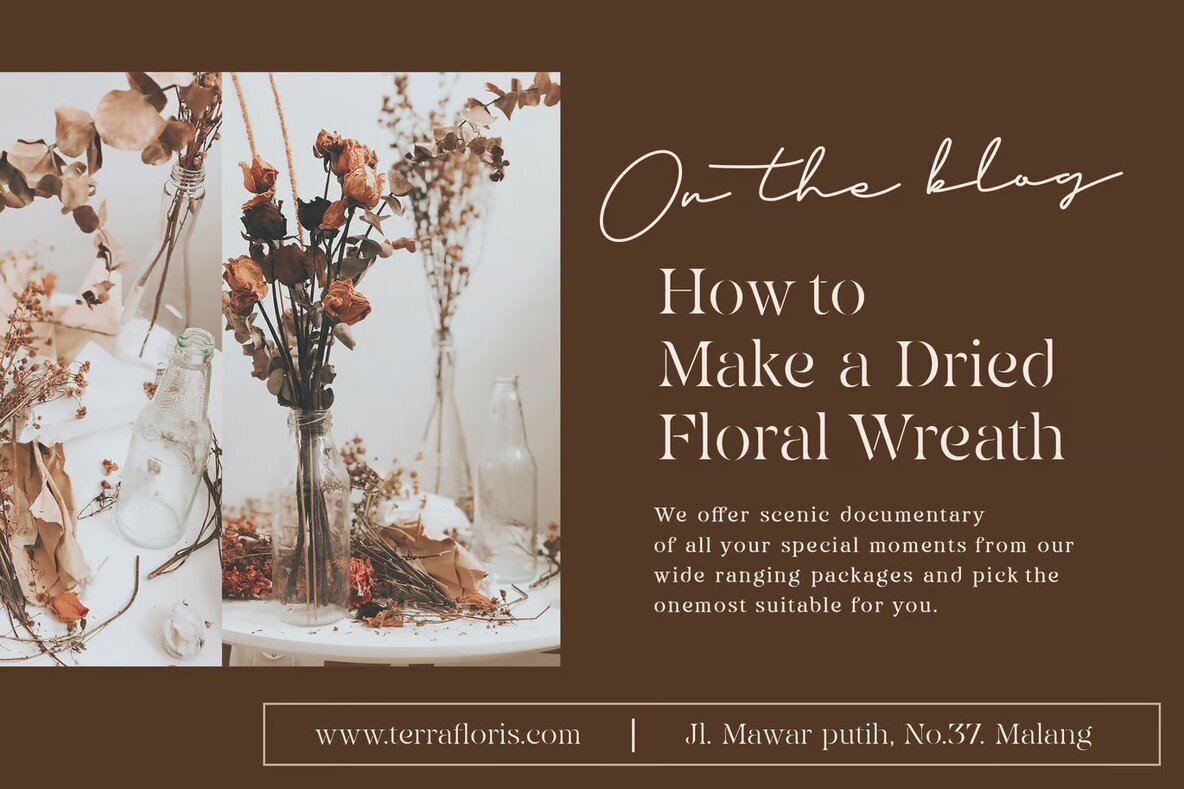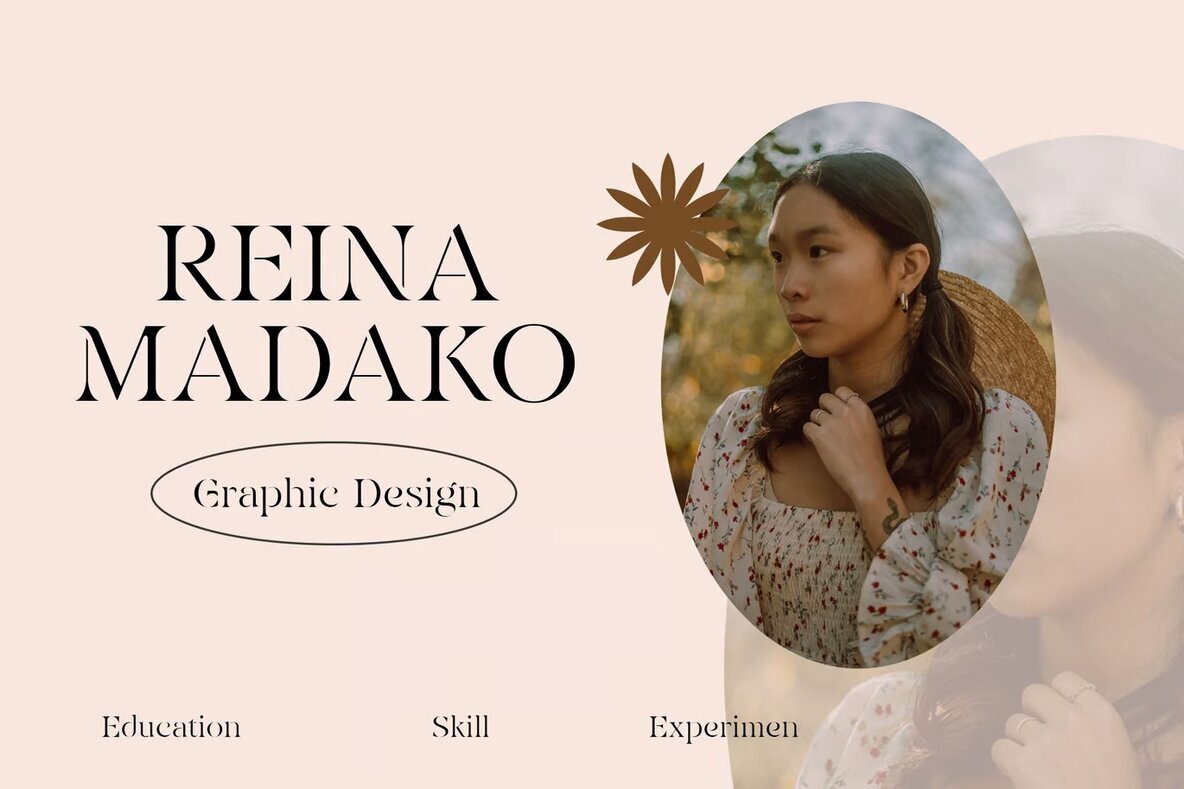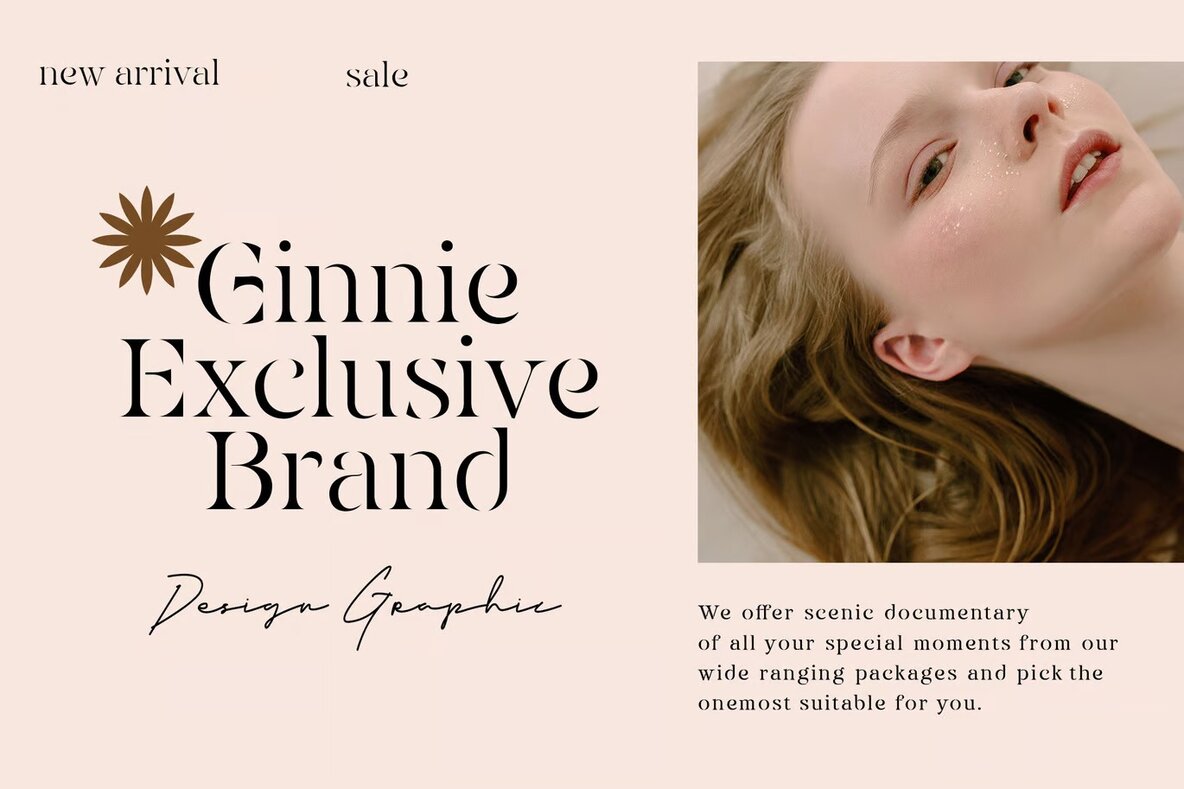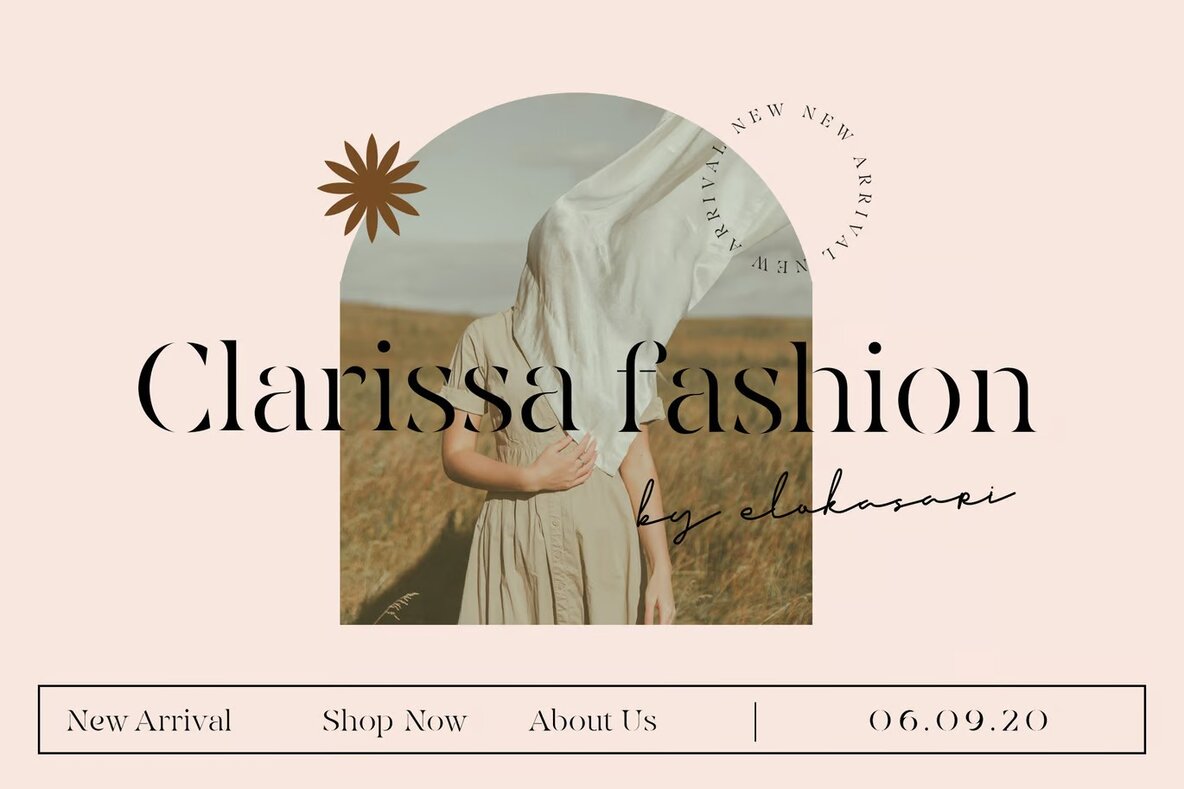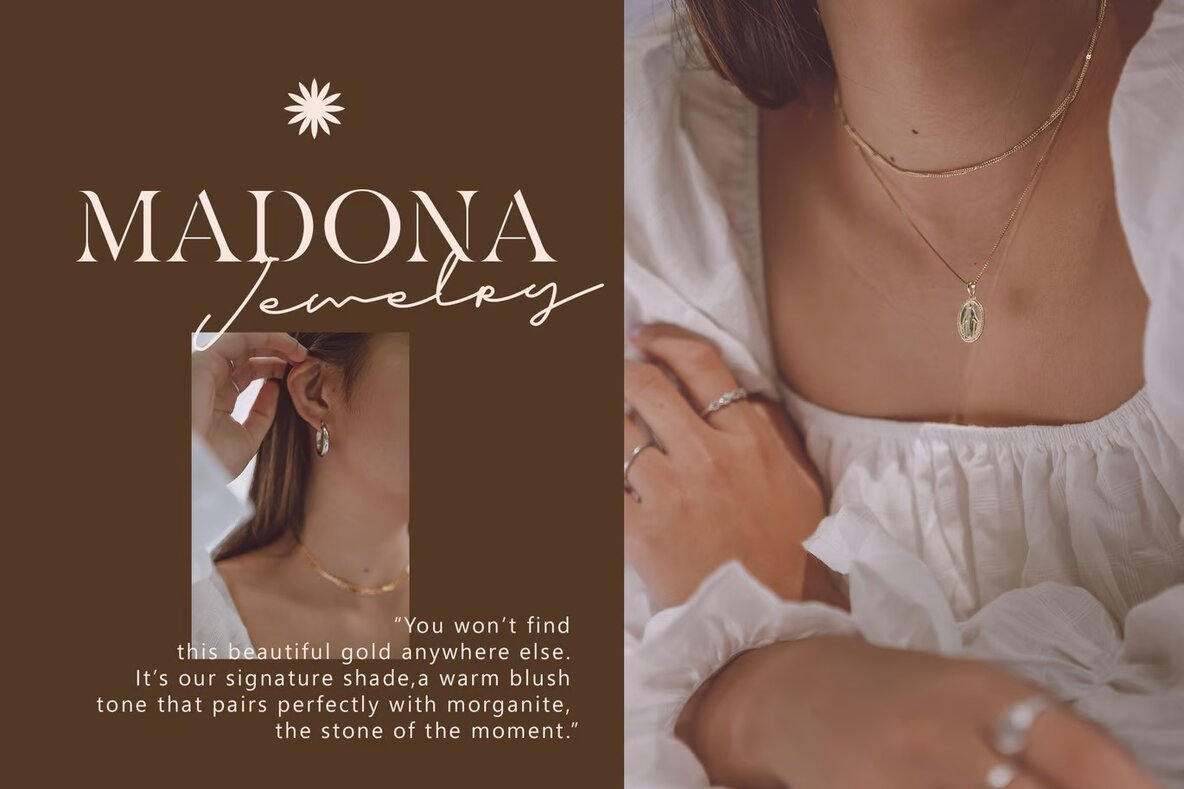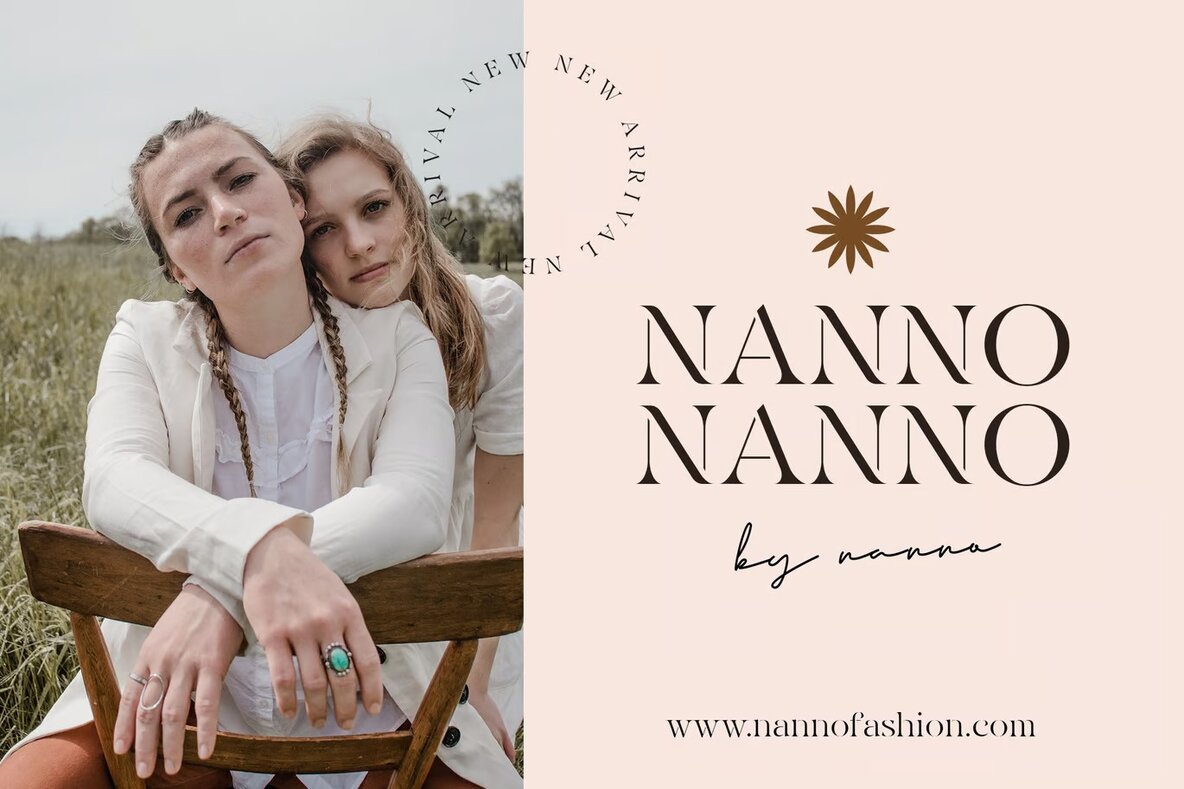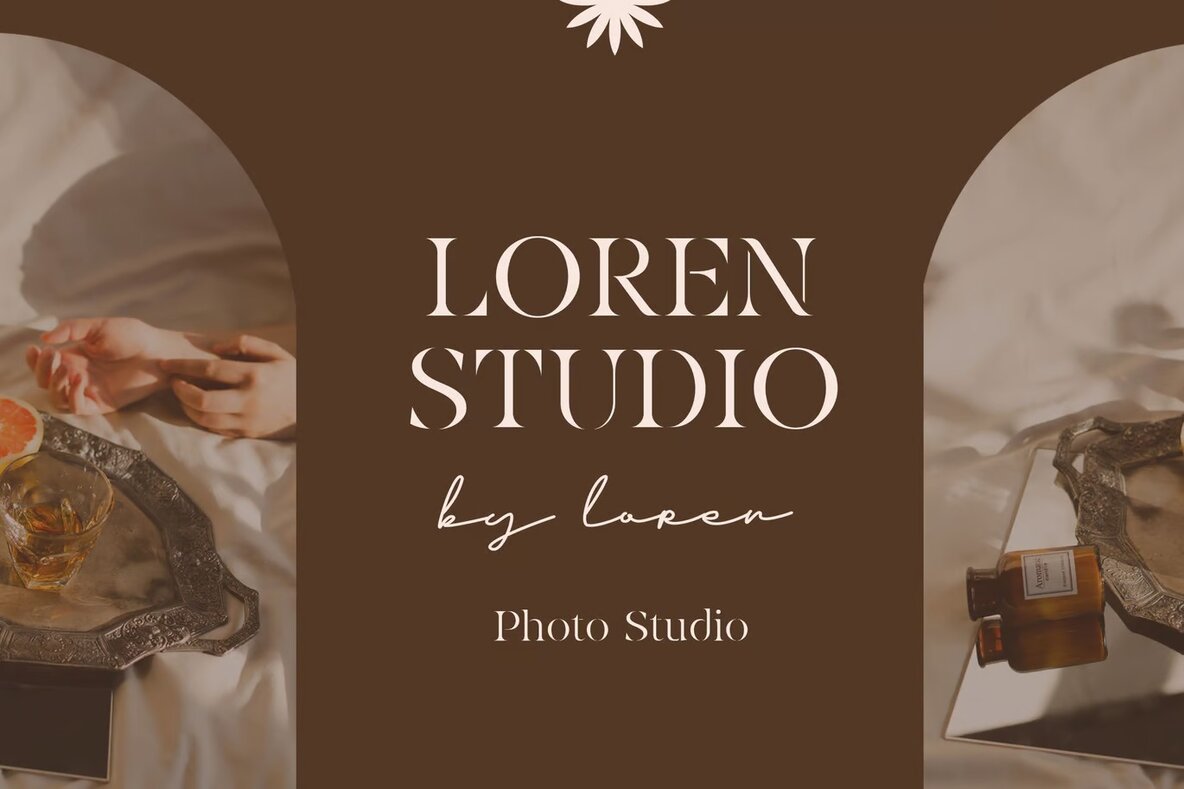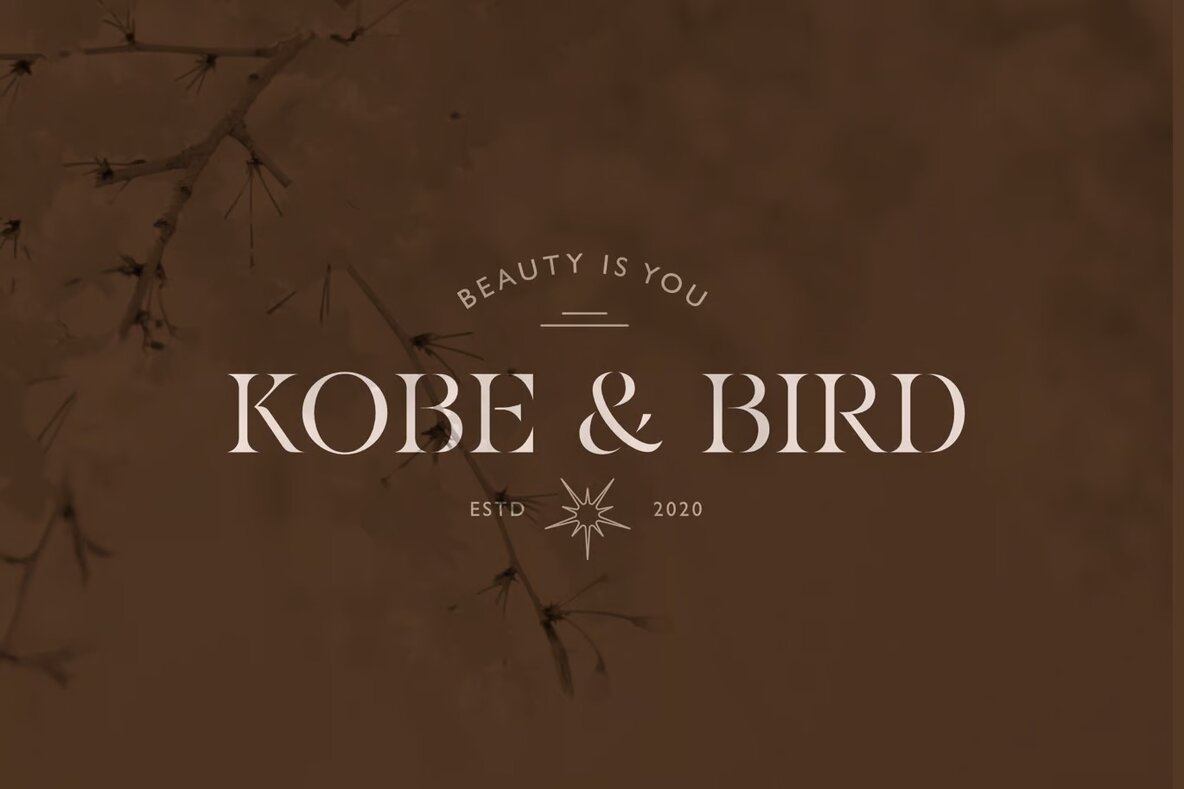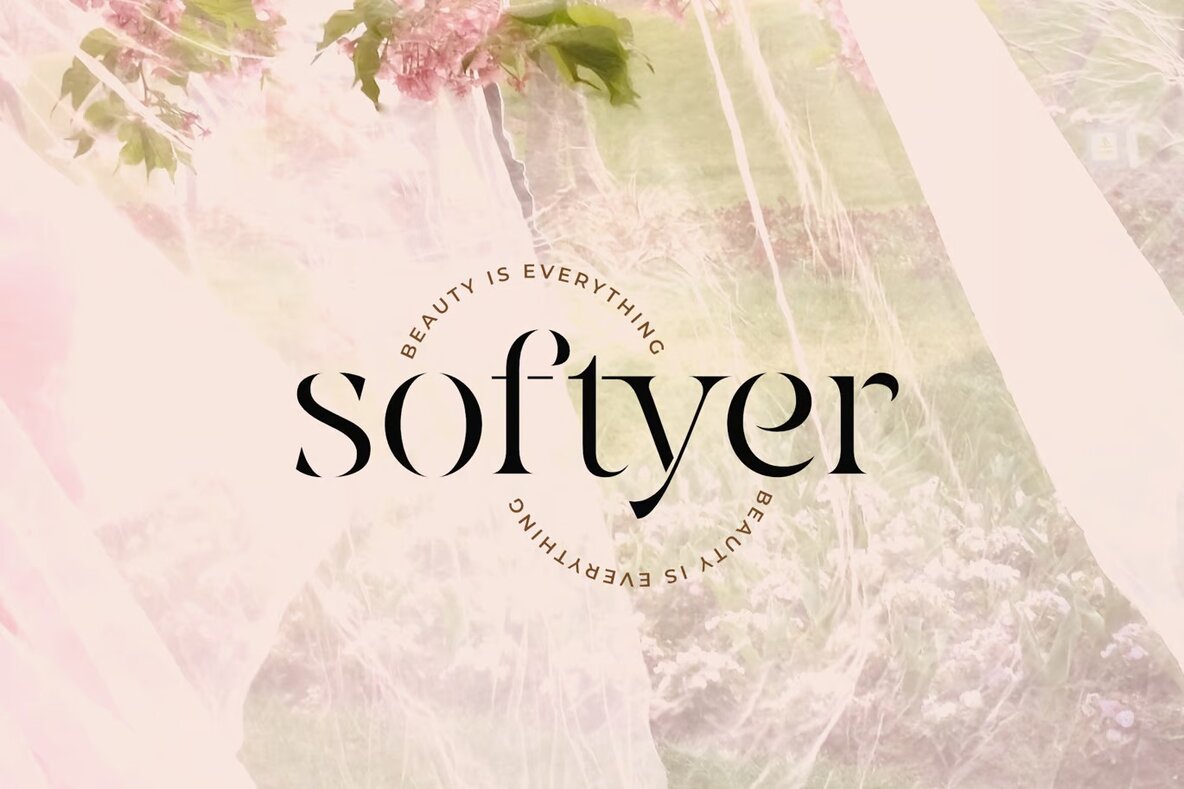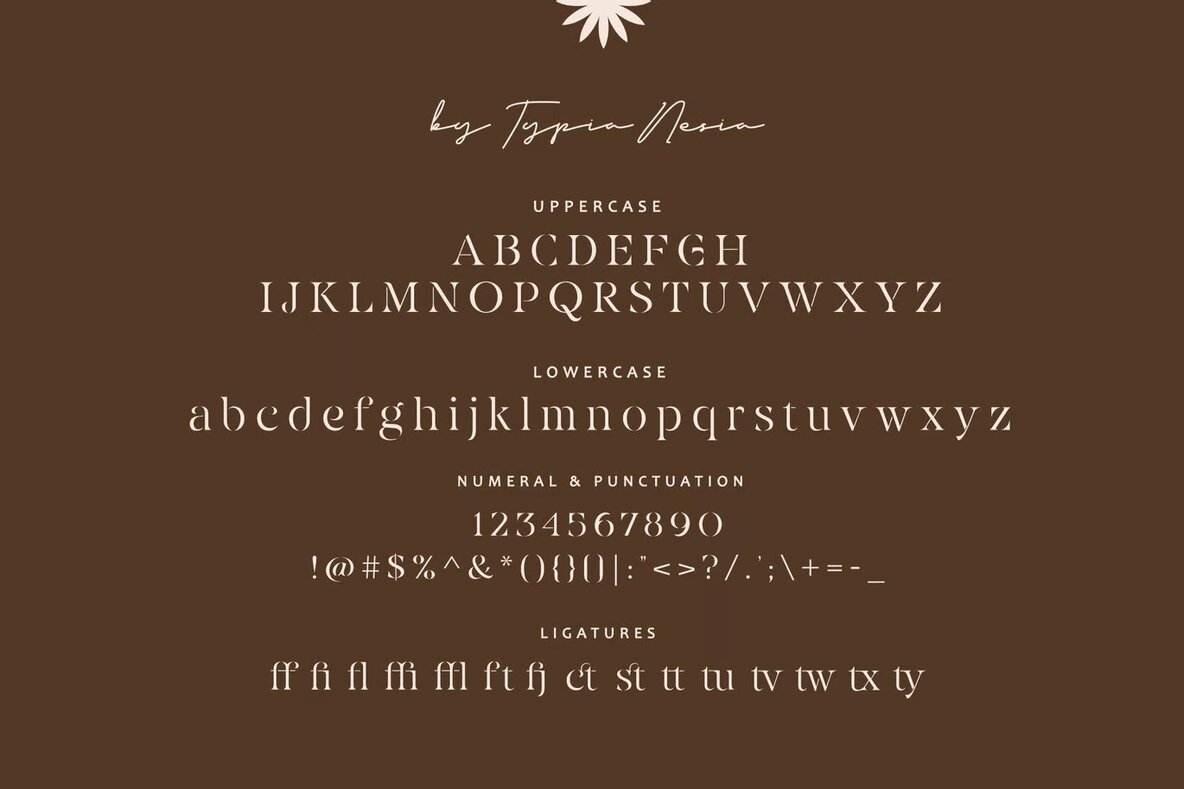
Eiosaka Font
Eiosaka Regular
Eiosaka is a sophisticated stencil serif font offering a touch of elegance to your design projects. Equipped with a range of ligatures, this font allows for seamless typography combinations that can transform your work into a sophisticated masterpiece. Ideal for luxury logos and branding, Eiosaka is a perfect fit for high-end editorial designs, women's magazines, and fashion promotions. Its unique style also enhances the visual appeal of cosmetic branding, art gallery tags, and museum signages.
Versatile in its use, Eiosaka is well-suited for boutique branding, stylish stationery, modern advertising, and more. Its classic design lends itself to projects like blog layouts, card invitations, and even art quotes, making it a great choice for home décor. Perfect for book covers and special event designs, this font adds a layer of class and heritage to any architectural or historical theme. Eiosaka is your go-to choice for any project requiring an infusion of glamour and sophistication.